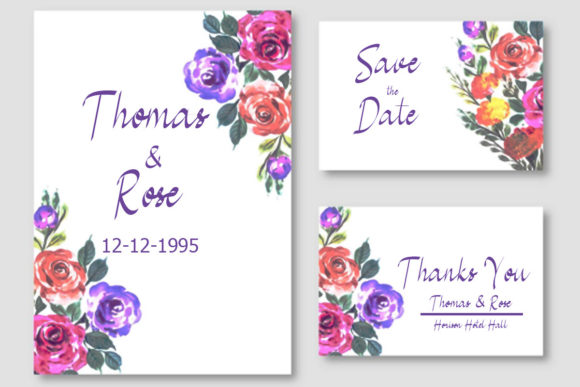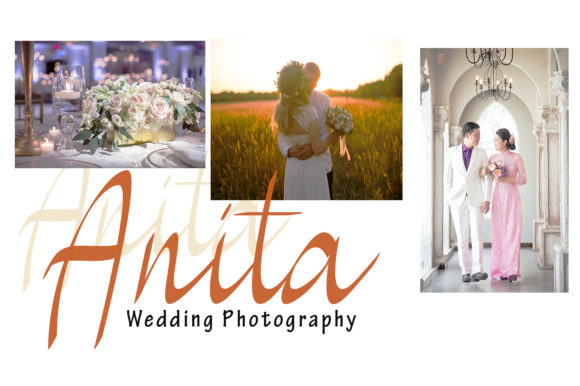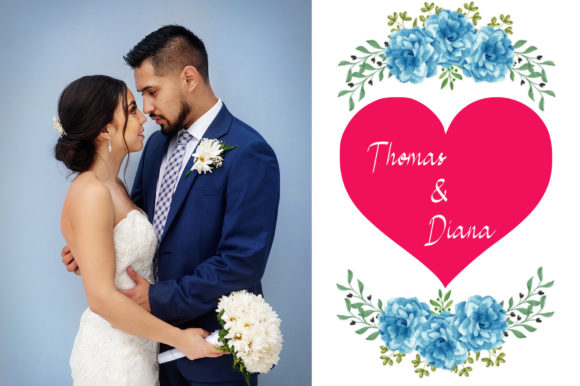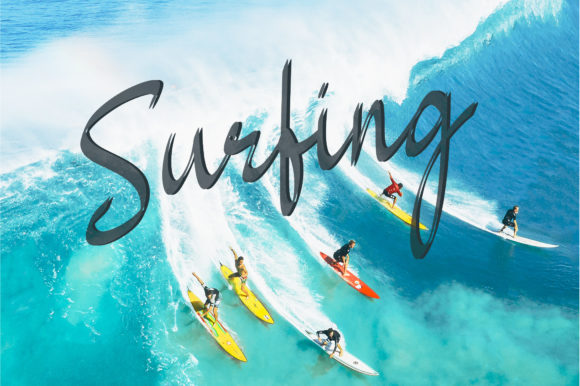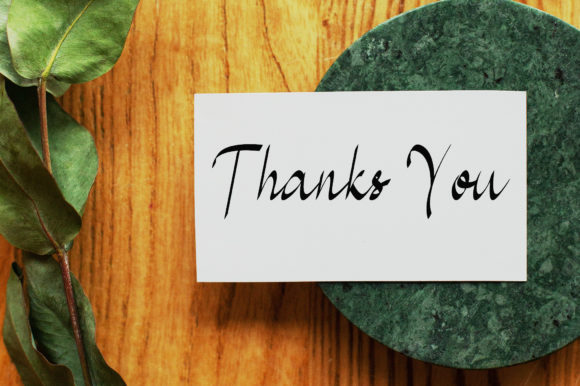
The Perfect Brushstroke: Unlocking the Beauty of Calligrafia Font
Have you ever sat down with a blank piece of paper and a pen, feeling the thrill of creation wash over you as the first strokes of your design begin to take shape? That’s the magic of calligraphy, and it’s a feeling that’s hard to replicate with digital tools. But what if you could capture that essence in your designs, without sacrificing the precision and flexibility of a digital font?
That’s where the Calligrafia Font comes in – a beautiful and timeless handwritten font that’s perfect for creating attractive logos, branding, and quotes. Each letter has a unique and beautiful touch, which will bring your designs to life. For designers, the Calligrafia Font is a valuable asset, offering a level of sophistication and elegance that’s hard to find in other fonts. Whether you’re working on a high-end project or just want to add a touch of personality to your designs, the Calligrafia Font is sure to impress.
Calligrafia Font Key Features
- Font Family: Calligrafia Font is a digital font family designed to mimic traditional calligraphy.
- Unique Characteristics: Features intricate, handwritten letterforms with subtle flair and texture, evoking the feel of traditional calligraphy.
Calligrafia Font Review
Overall, I think Calligrafia is a solid font choice for projects that need a touch of elegance. Here are some things that work well:
- ✨ Beautifully crafted letterforms that evoke a sense of classic sophistication.
- ✨ Great for use in formal invitations, wedding stationery, or other special occasions.
- ✨ Highly legible, making it suitable for body text as well as headings.
- ⚠️ Limited font weights, which might limit your design options.
- ⚠️ Not ideal for use in digital interfaces, as it may appear too ornate or overwhelming on smaller screens.
- ⚠️ May not be suitable for projects that require a more modern or edgy aesthetic.
Overall, I think Calligrafia is a lovely font that can add a touch of sophistication to your designs. While it may not be the most versatile font, it excels in its niche and can be a great choice for the right project.
Tips for Getting the Most Out of Calligrafia Font
Use Calligrafia Font for titles, headings, and quotes to add a touch of elegance to your designs. Experiment with different font sizes and colors to create a visually appealing contrast. Use the font in combination with other design elements, such as illustrations or graphics, to create a unique and eye-catching design.
Calligrafia Font is perfect for wedding invitations, business cards, and other formal designs. It’s also great for creating a beautiful and elegant look for social media graphics, blog posts, and marketing materials.
Alternatives to Calligrafia Font
Carolyna Pro is a modern calligraphy font that offers a more refined and elegant look compared to Calligrafia Font. It is ideal for use in wedding invitations, branding, and other high-end design projects. Unlike Calligrafia Font, Carolyna Pro has a more fluid and connected feel to the letters, making it suitable for long text passages.
Pacifico is a beautiful script font that is perfect for creating a warm and inviting atmosphere. It is a good alternative to Calligrafia Font for use in logos, branding, and packaging designs. Pacifico has a more relaxed and casual feel compared to Calligrafia Font, making it suitable for use in creative and artistic projects.
Great Vibes is a modern script font that is inspired by the art of calligraphy. It is a good alternative to Calligrafia Font for use in digital and print designs. Great Vibes has a more dynamic and energetic feel compared to Calligrafia Font, making it suitable for use in advertising, social media, and other high-energy projects.